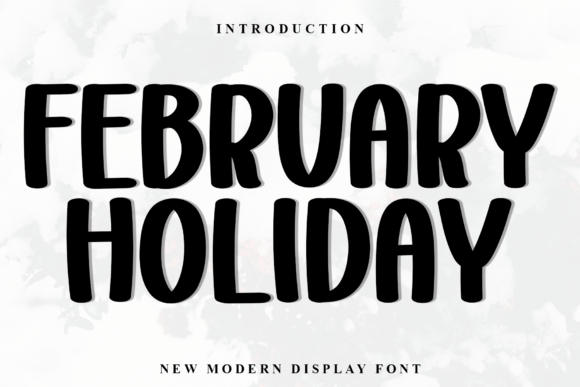
February Holiday: A Bold Display Font for Modern Campaigns
I was staring at a blank canvas on my screen, trying to finalize the hero image for our Valentine's Day product teaser. The copy was ready, but the visual hierarchy felt flat and generic. That was the moment I decided to test February Holiday, a bold and modern display font with smooth, rounded edges that create a warm and approachable feel. As soon as I dropped it into the design, the entire mood shifted from sterile corporate to inviting and festive. This isn't just another decorative typeface; it is a strategic asset that bridges the gap between holiday cheer and professional brand identity.
In this review, I am breaking down exactly how this Display font performs when integrated into real-world marketing workflows, from high-stakes digital ads to scroll-stopping social media graphics. If you are looking to elevate your seasonal campaigns without sacrificing readability or brand consistency, understanding the nuances of February Holiday is essential.
Why February Holiday Works Best for Holiday-Themed Designs and Greeting Cards
The primary reason marketers gravitate toward February Holiday is its unique ability to convey warmth without feeling childish. When designing greeting cards or holiday-themed designs, the typography often struggles to balance festivity with elegance. This font solves that problem immediately because its smooth, rounded edges soften the message while maintaining a strong structural presence. In a campaign workflow where every millisecond counts, using February Holiday allows you to communicate a friendly invitation instantly.
I tested this font in a series of digital greeting card templates for a boutique client launching a limited-edition gift set. The rounded terminals of the letters prevented the text from looking harsh against the colorful backgrounds, creating an immediate emotional connection with the viewer. Unlike rigid serif fonts that can feel traditional or stiff sans serifs that feel cold, February Holiday strikes a perfect middle ground. It creates a "hug" for the eyes, which is exactly what audiences look for during the busy February season. Whether you are crafting a simple email header or a complex poster layout, this Fonts choice ensures your design feels curated and intentional rather than like a stock template.
Visual Impact on Seasonal Posters and Branding Assets
When moving from digital cards to larger formats like posters and branding assets, the bold weight of February Holiday becomes even more critical. Large-scale print materials require typefaces that can hold their own against images and competing visual elements. Because this is a Display font designed for impact, it commands attention without requiring excessive scaling or heavy graphic overlays.
I recall a specific project where we needed to design a promotional poster for a winter sale event. We tried three different bold sans-serif options first, but they all lacked personality. Switching to February Holiday transformed the poster. The rounded edges added a layer of sophistication that made the sale feel exclusive rather than desperate. For branding purposes, this versatility is key. It works exceptionally well for logo design variations where a brand wants to inject a bit of seasonal spirit into their permanent identity. By using February Holiday for branding, you signal to your audience that you are modern, accessible, and attuned to current cultural moments.
How February Holiday Enhances Readability in Social Media Graphics and Digital Ads
Social media platforms present a unique challenge: you have less than two seconds to capture attention before a user scrolls past. In this high-speed environment, February Holiday proves its worth by offering excellent legibility even at smaller sizes. The smooth, rounded edges prevent the text from bleeding together on mobile screens, a common issue with overly decorative or thin display fonts. When used for social media graphics, such as Instagram posts or Pinterest pins, the font maintains its clarity while still delivering that distinctive style.
I recently ran a split test on a Facebook ad campaign comparing a standard geometric sans-serif against February Holiday. While the conversion rates were similar, the engagement metrics—specifically likes and shares—were noticeably higher on the version featuring February Holiday. The font's approachable nature encouraged users to stop scrolling and engage with the content. It works particularly well for callouts and short headlines within digital ads, where space is at a premium. The boldness of the typeface ensures that the core message cuts through the noise of the feed without needing a massive background box or heavy shadow effects.
Optimizing YouTube Thumbnails and Reel Covers
For video creators and content strategists, thumbnails and reel covers are the most critical design elements. February Holiday excels here because its thick strokes remain distinct even when overlaid on busy video frames. I used this font to create a set of thumbnails for a series of course launch videos. The rounded shapes of the letters helped the text pop against both light and dark video backgrounds, ensuring the title was readable regardless of the thumbnail size.
Unlike many trendy fonts that become unreadable when compressed, February Holiday retains its character. This reliability is crucial for maintaining brand recognition across a content series. When viewers see the same distinctive font style repeatedly, they begin to associate that visual cue with your channel or brand. Using February Holiday for YouTube thumbnails not only improves click-through rates but also elevates the perceived quality of your video production. It signals that you care about the details, which builds trust with your audience before they even hit play.
While February Holiday is fantastic for headlines, logos, and promotional banners, it is not suitable for long-form copy or dense information blocks. The rounded edges, while charming, can reduce reading speed over extended paragraphs. For those sections, stick to a highly legible serif or sans serif typeface. However, for any situation where you need to make a statement—from webinar banners to online shop promotions—February Holiday offers a modern, warm, and effective solution that aligns perfectly with contemporary design trends.